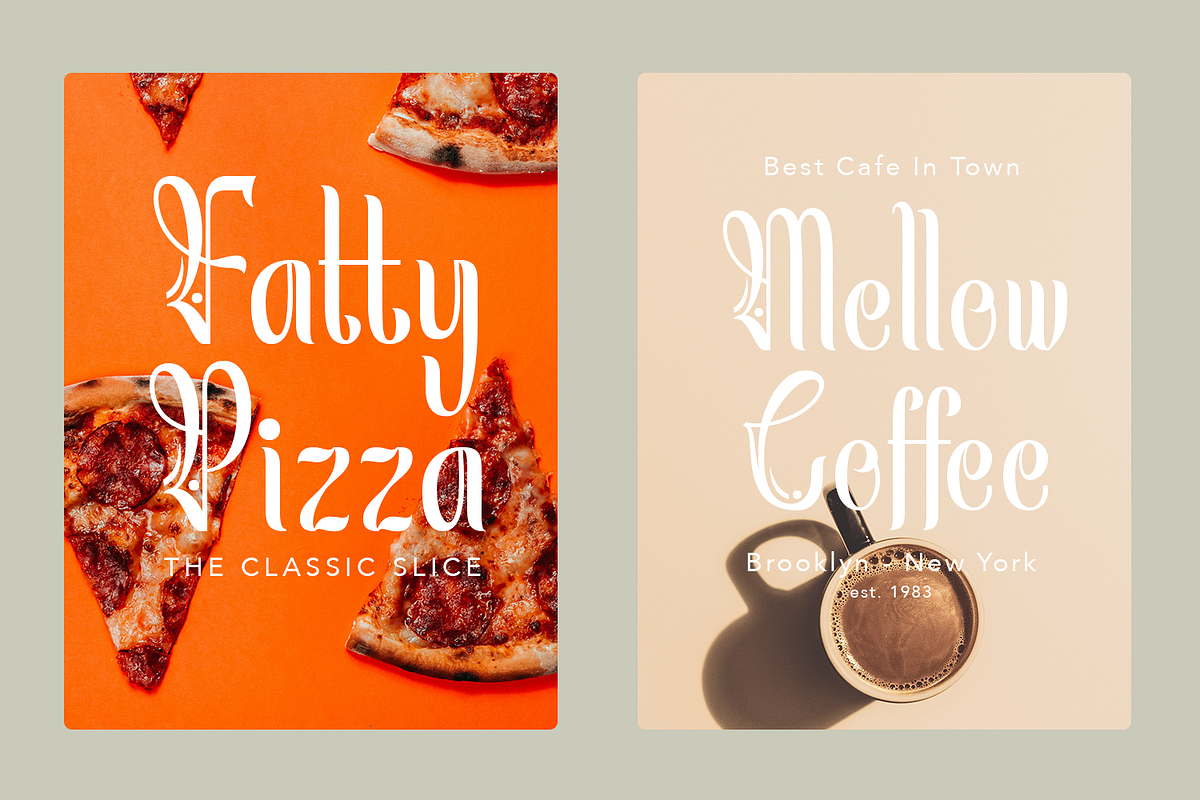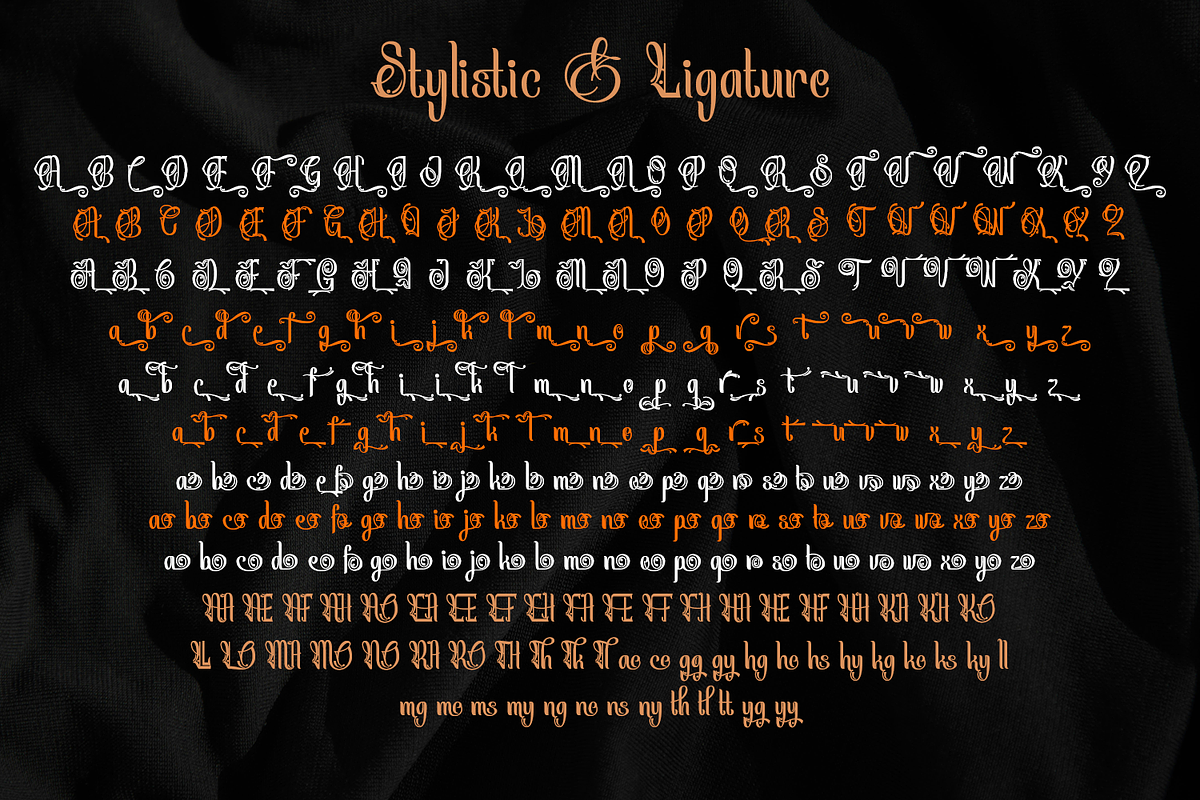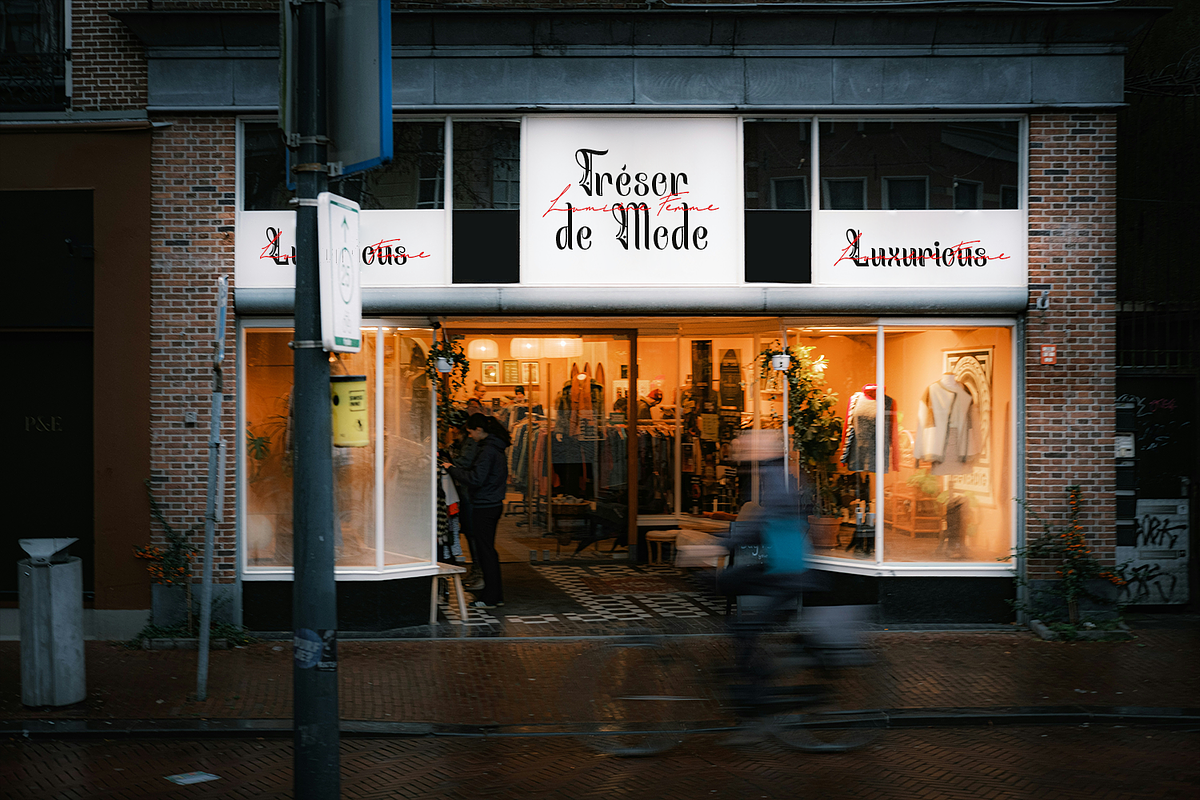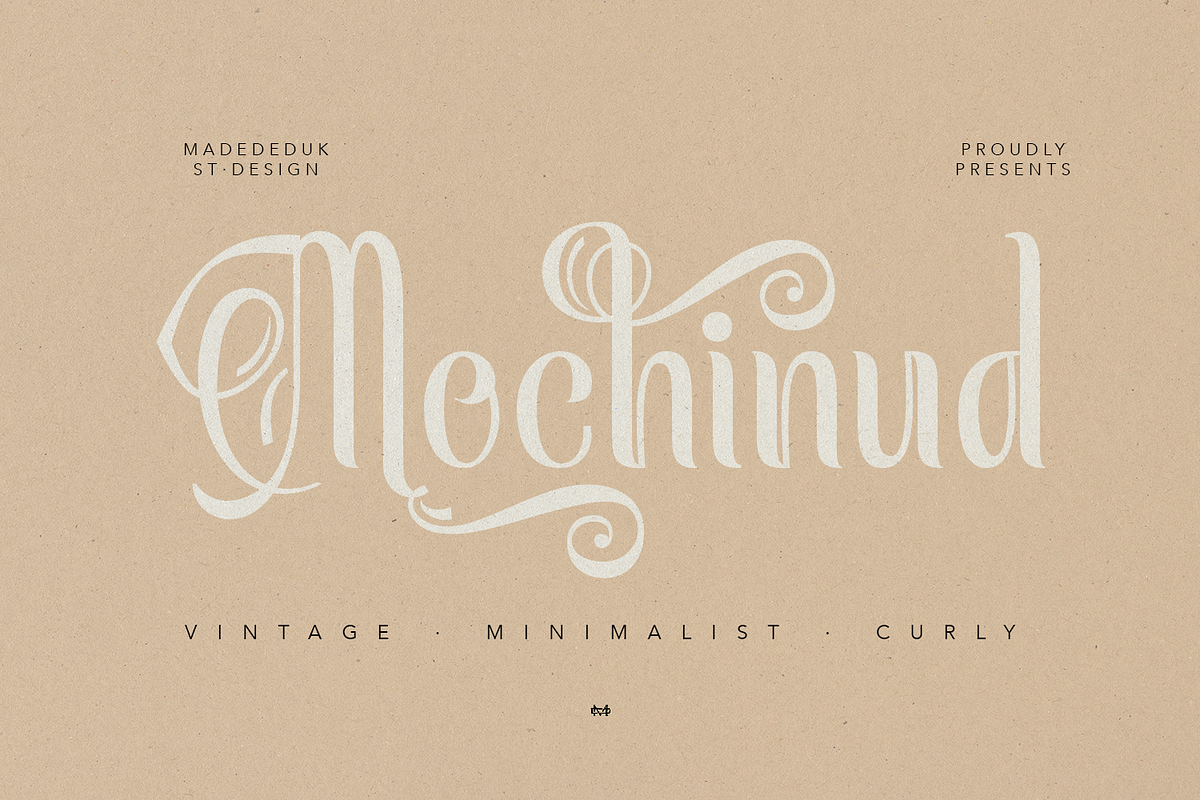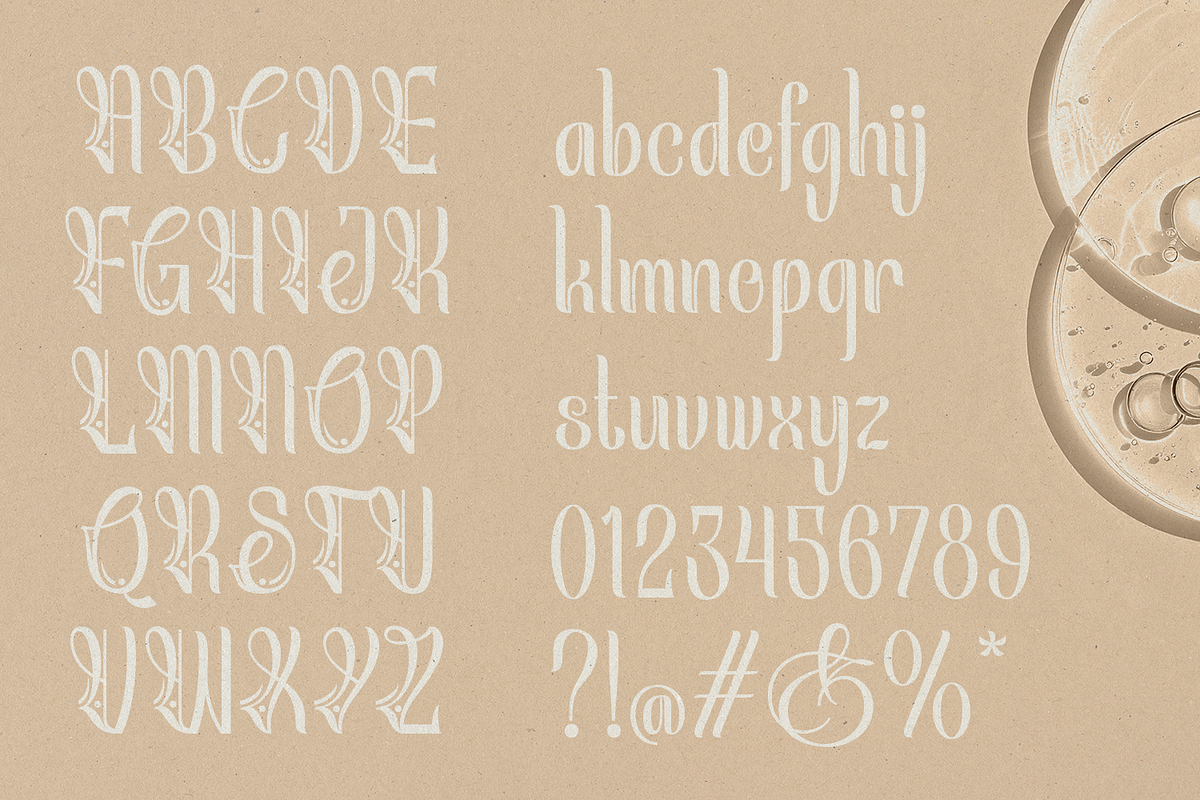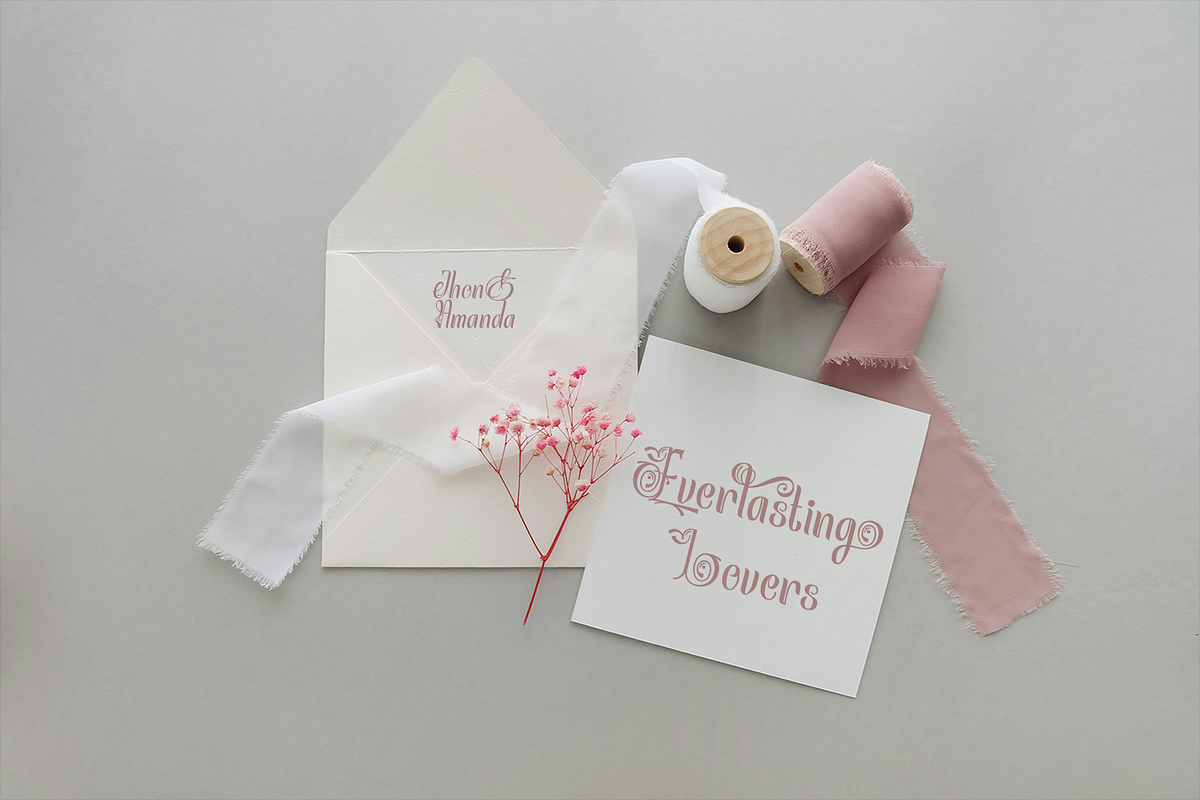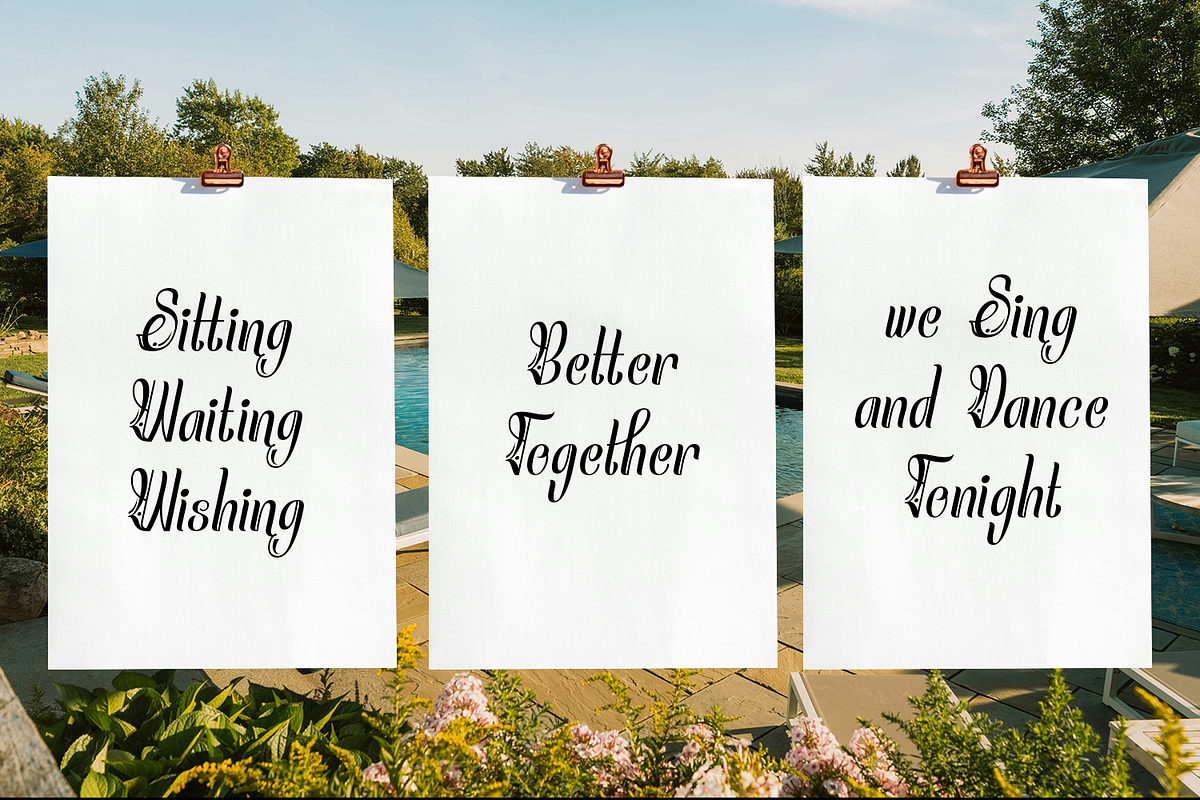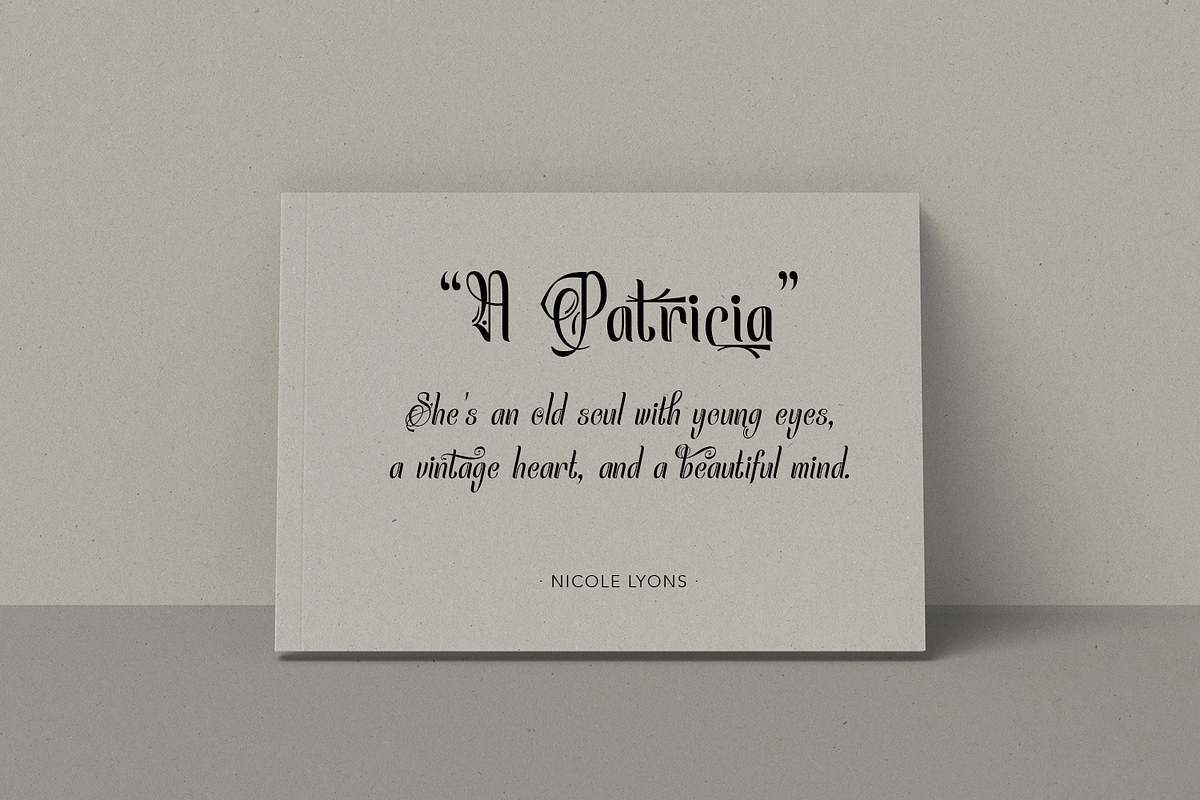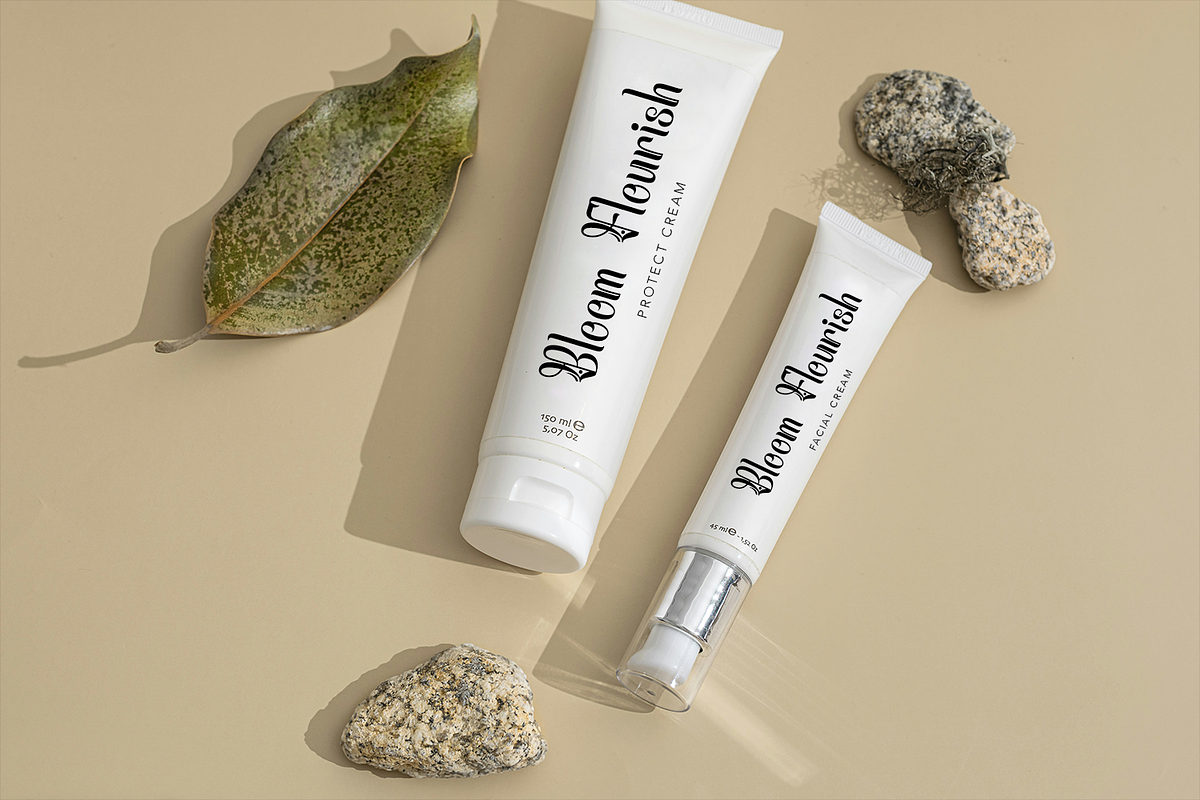
Mochinud Font
Introducing, Mochinud font style with a classic touch, incorporating curved elements into each character. Its elegant, unique, and artistic letterforms create a premium impression while capturing attention. The combination of refined letterforms and decorative lines makes the font instantly recognizable, effectively strengthening a product's visual identity.
In packaging design, this font is ideal as a primary element for brand names or book covers particularly for genres such as fantasy, fairy tales, royal, classics, romance, or historical fiction. Its aesthetic appeal conveys a sense of exclusivity, creativity, and quality, making the packaging stand out on retail shelves while enhancing the product's overall appeal and market value.